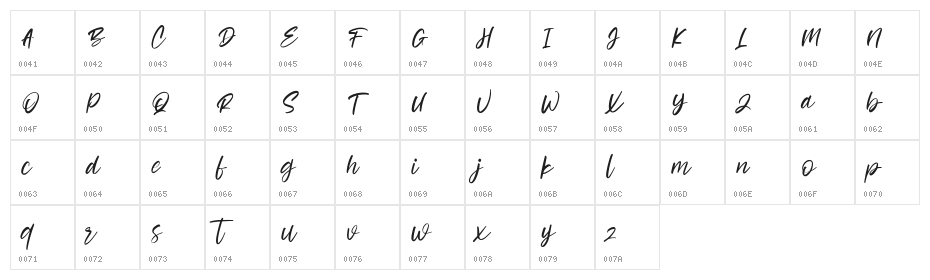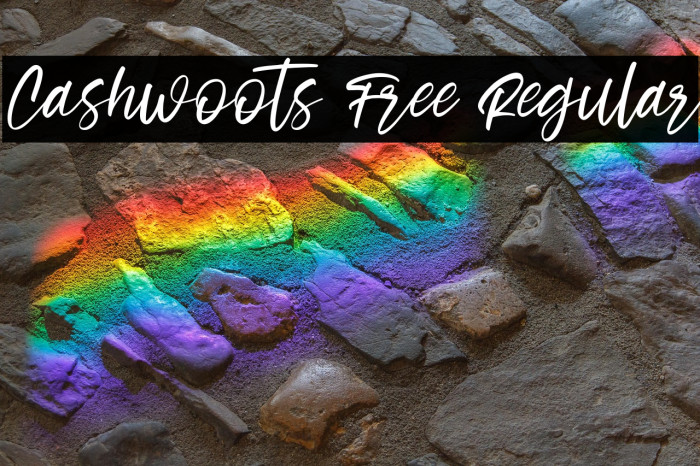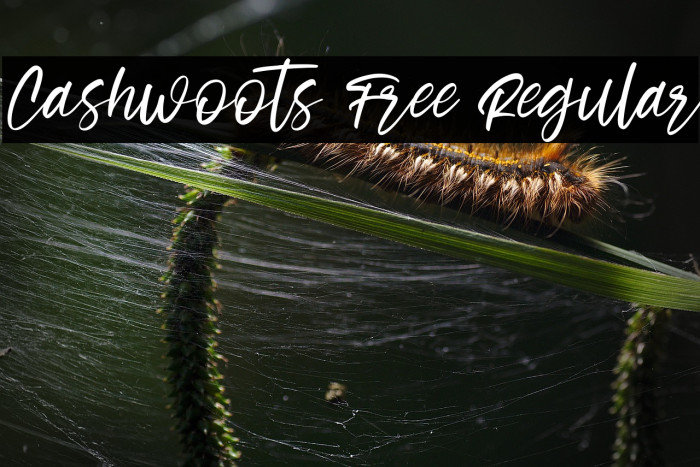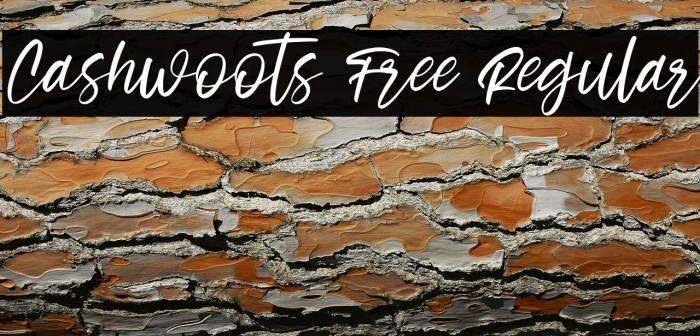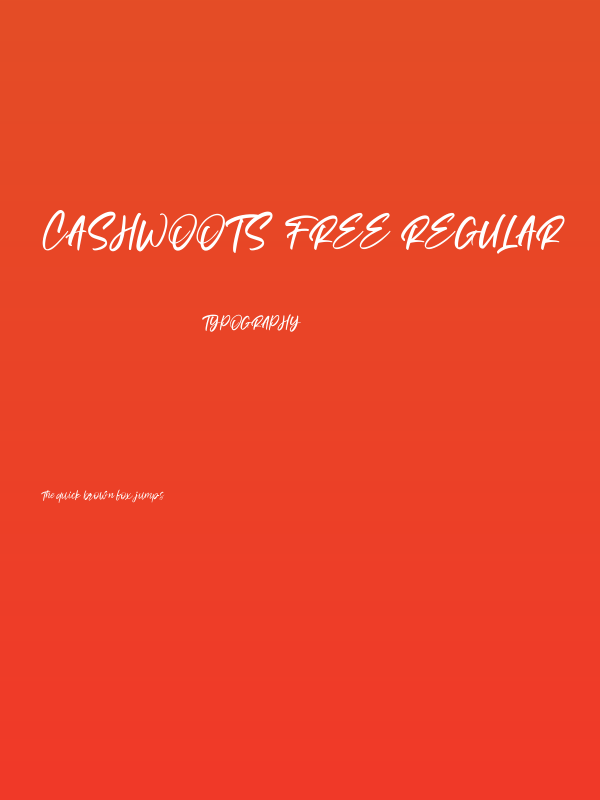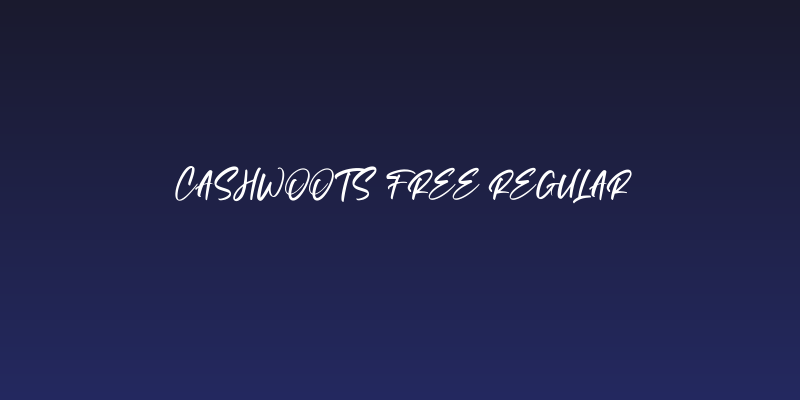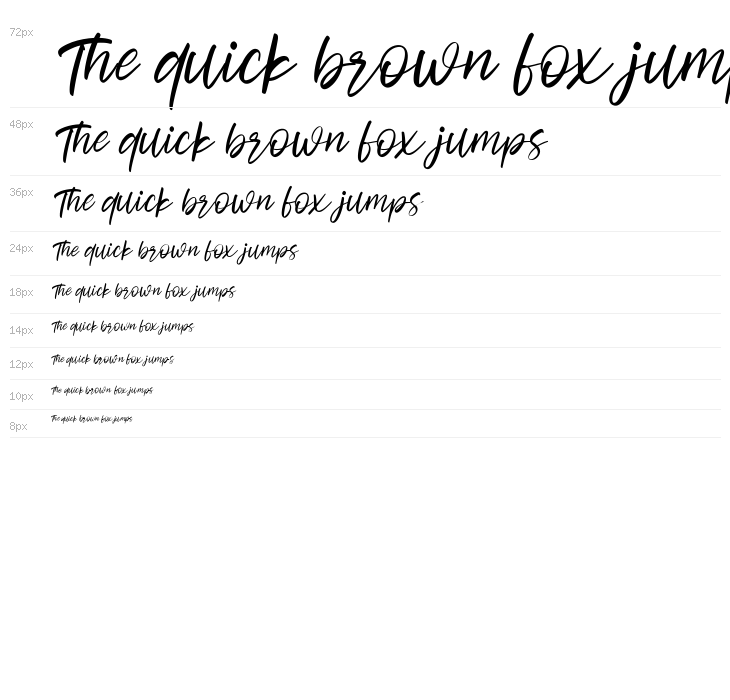
Cashwoots Free Regular Font
Cashwoots Free Regular Description
This font features a dynamic and flowing script style, characterized by its smooth, cursive strokes and elegant curves. The letters are interconnected, creating a sense of continuity and fluidity. The uppercase letters are bold and prominent, while the lowercase letters maintain a consistent rhythm and balance. The font exudes a casual yet sophisticated vibe, making it suitable for a variety of design applications. Its handwritten appearance adds a personal touch, enhancing its versatility for creative projects.
Use CaseLogos, Headlines, Decorative text
Proposed ProjectsIdeal for wedding invitations, greeting cards, branding, and social media graphics.